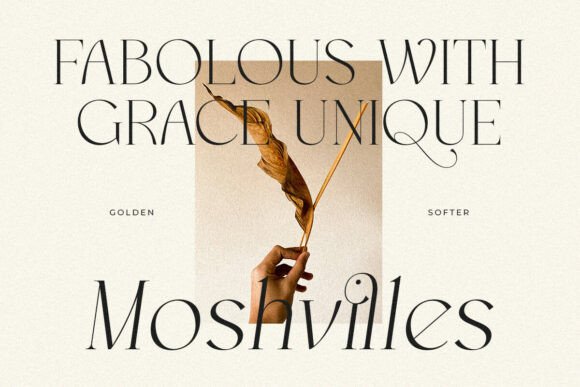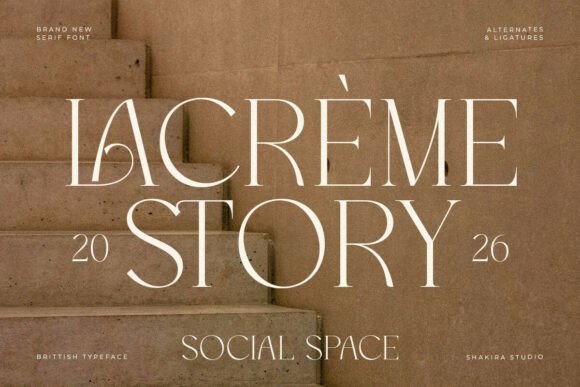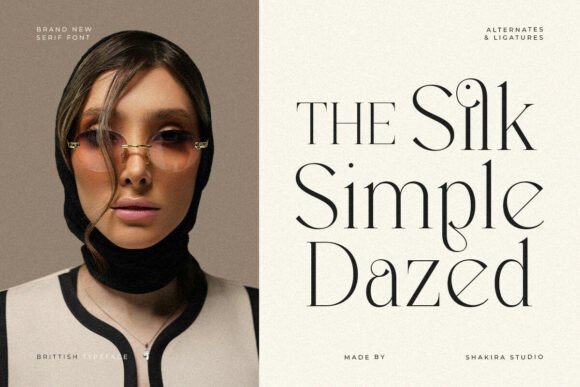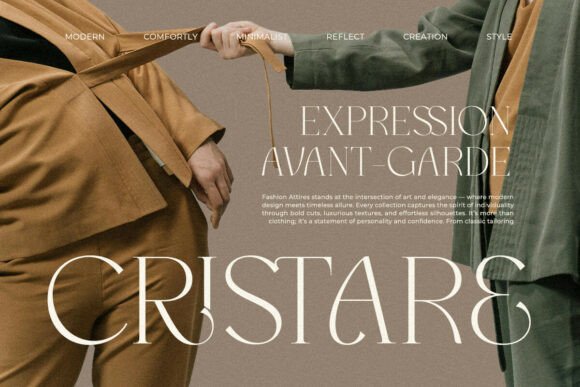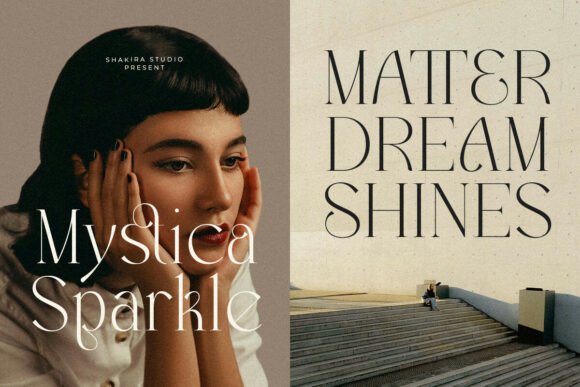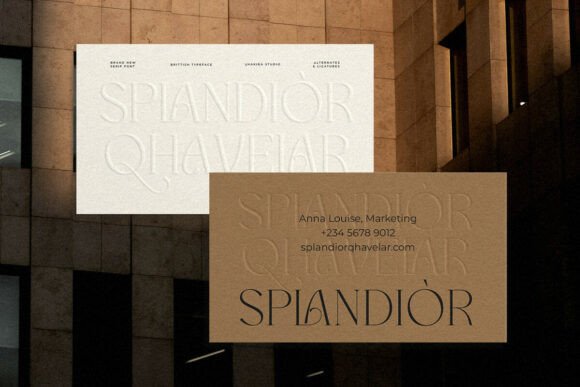
Introducing Brittish Font: The Epitome of Modern Luxury
In the world of typography, few fonts have managed to capture the essence of modern luxury as effortlessly as Brittish Font. This stunning typeface is a masterful blend of traditional and contemporary design elements, making it the perfect choice for designers and crafters looking to add a touch of sophistication to their projects.
The Design Philosophy Behind Brittish Font
Brittish Display is a serif font that exudes timeless authority, while also showcasing high-fashion contemporary elegance. The design philosophy behind this font is rooted in the perfect balance between classic and modern elements. The result is a sophisticated typeface that commands attention with its refined, chic aesthetic.
Key Features of Brittish Font
So, what sets Brittish Font apart from other typefaces? Here are some of its key features:
- Dramatic Contrast: Brittish Font features a dramatic contrast between razor-thin lines and bold stems, creating a visually striking effect.
- Sweeping Ligatures: The font includes breathtaking, sweeping ligatures that add an extra layer of elegance to your designs.
- Unique Alternates: With unique alternates, you can experiment with different variations of the font to find the perfect fit for your project.
- Tall and Slender: The tall, slender posture of Brittish Font gives it a statuesque quality, perfect for high-end branding and luxury editorial layouts.
- Graceful Curves: The font’s graceful curves add a touch of sophistication and refinement to your designs.
Perfect for High-End Projects
Brittish Font is an elite choice for designers and crafters working on high-end projects. Its refined aesthetic makes it perfect for:
- High-End Branding: Use Brittish Font to create stunning logos and branding materials that exude luxury and sophistication.
- Luxury Editorial Layouts: The font’s elegant design makes it perfect for high-end editorial layouts, such as fashion magazines and luxury lifestyle publications.
- Boutique Logos: Create unique and eye-catching logos for your boutique or small business with Brittish Font.
- Upscale Wedding Stationery: Add a touch of elegance to your wedding stationery with Brittish Font, perfect for high-end wedding designs.
Brittish Font is available in two versions: Regular and Italic. The sharp Regular version is perfect for designs that require a bold, attention-grabbing font, while the fluid Italic version adds a touch of elegance and sophistication.
Whether you’re a designer or crafter, Brittish Font offers the versatility you need to bring your projects to life. With its wide range of applications and stunning design, it’s no wonder that Brittish Font is quickly becoming a favorite among typography enthusiasts.
| Font Name | Brittish Font |
| Author | Shakira Studio |
In conclusion, Brittish Font is a masterpiece of modern luxury that offers the perfect blend of traditional and contemporary design elements. Its stunning features, versatility, and refined aesthetic make it an elite choice for high-end projects. Whether you’re working on branding, editorial layouts, or wedding stationery, Brittish Font is the perfect choice for designers and crafters looking to add a touch of sophistication to their designs.